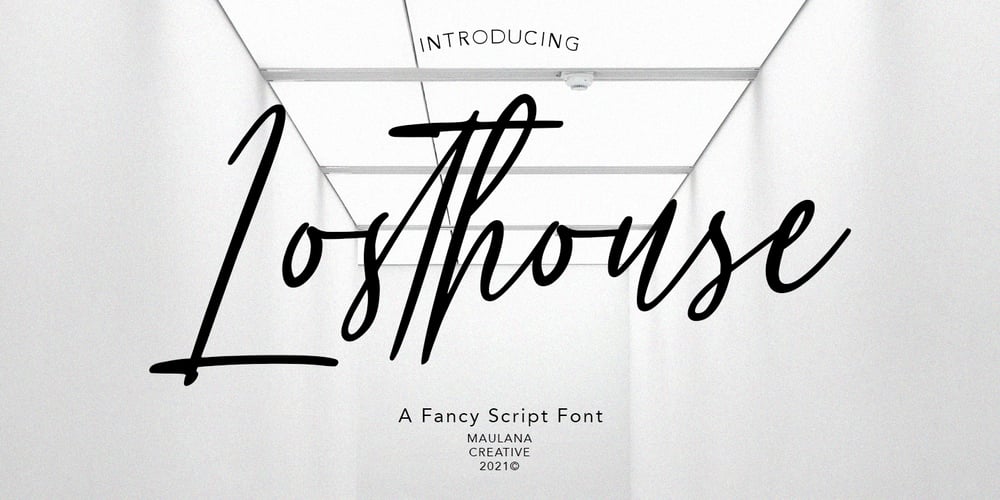
Losthouse
Losthouse font
Losthouse Font Family was designed by Gilang Maulana and published by Maulana Creative. Losthouse contains 1 styles and family package options. Losthouse is fancy script font, with clean felt tip stroke and fun character. It has Opentype features of ligatures character, To give you an extra creative work. Losthouse script font support multilingual more than 100+ language. This font is good for logo design, Social media, Movie Titles, Books Titles, a short text even a long text letter and good for your secondary text font with sans or serif. Make a stunning work with Losthouse script font. Cheers, MaulanaCreative